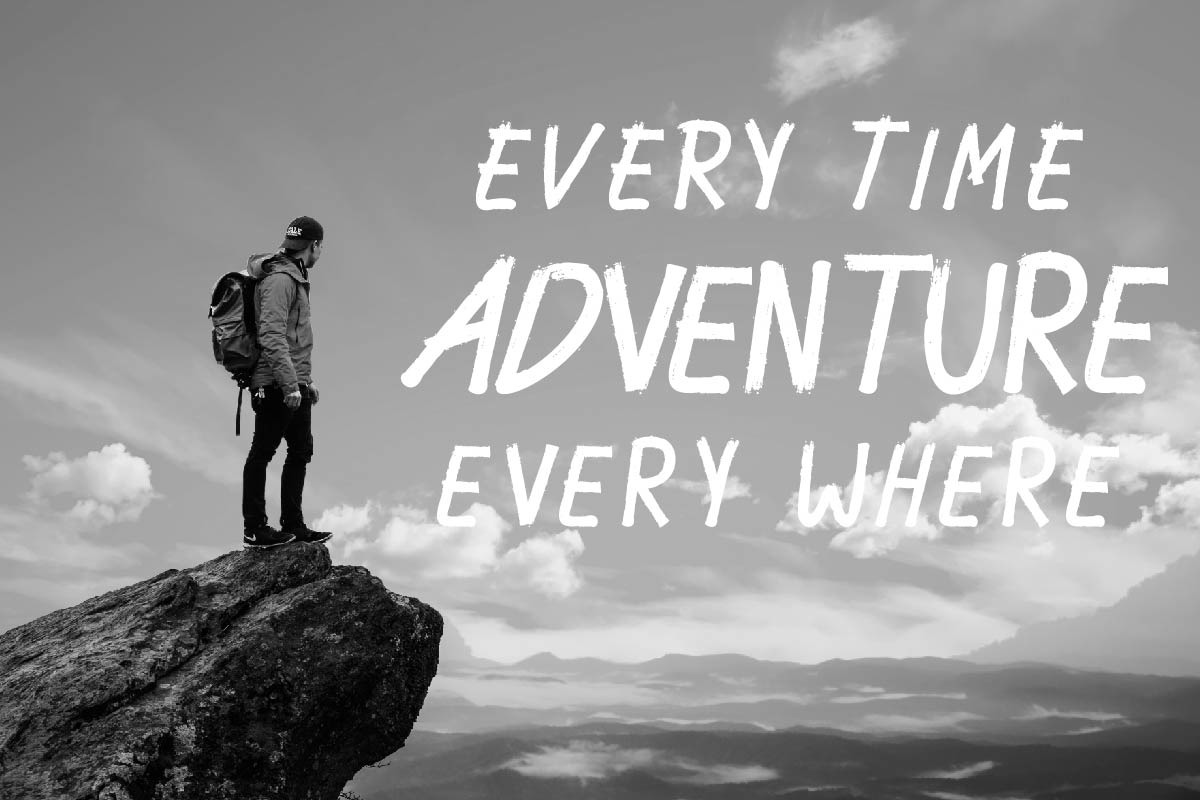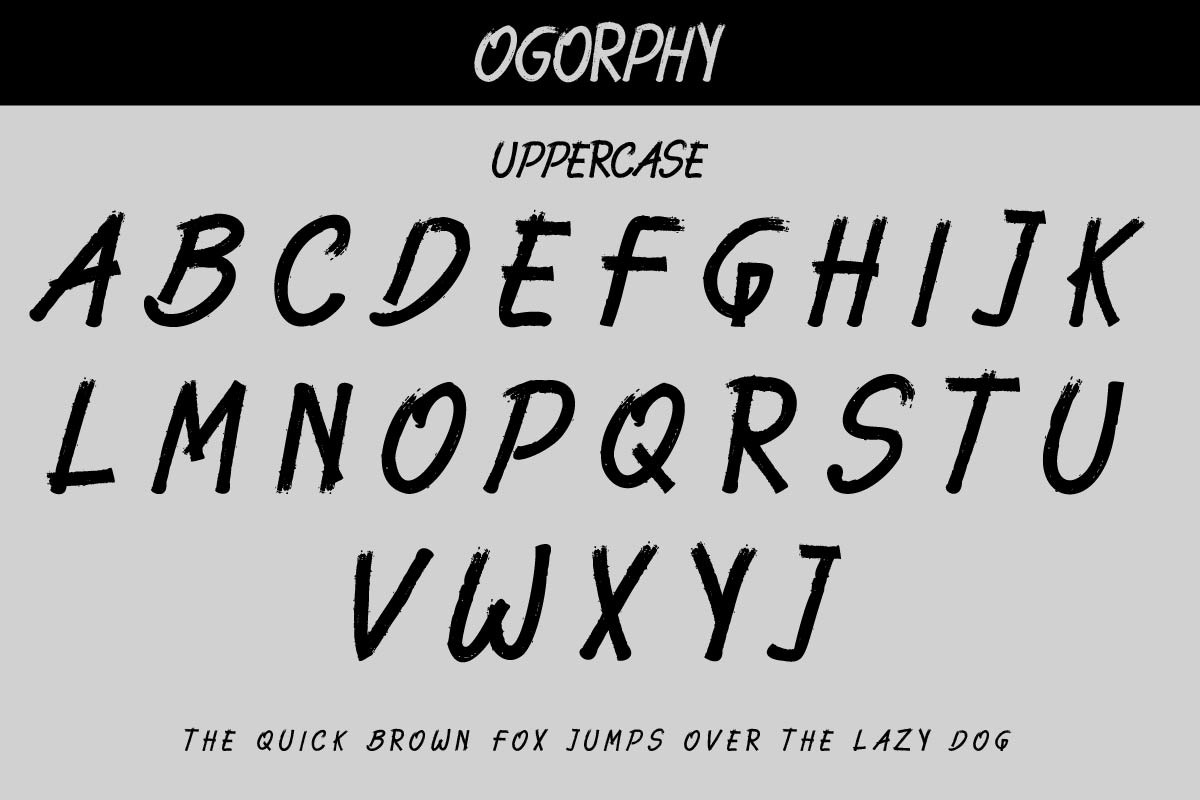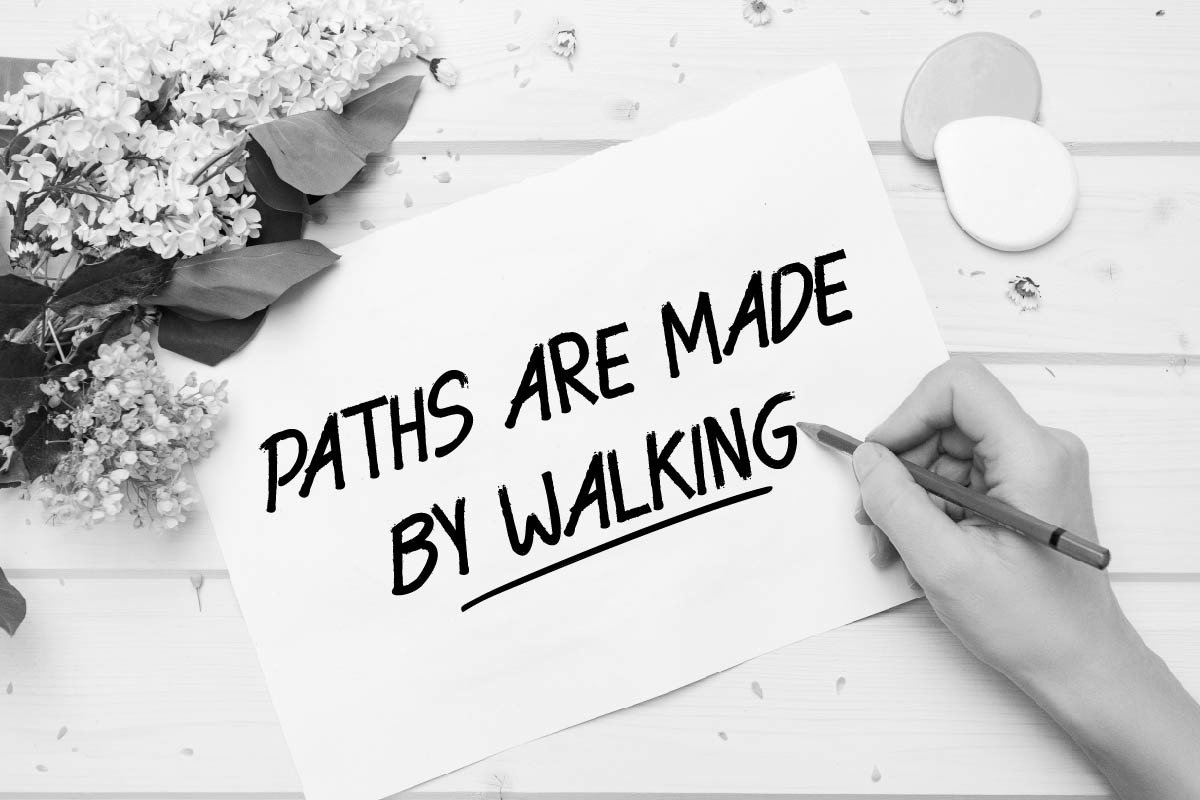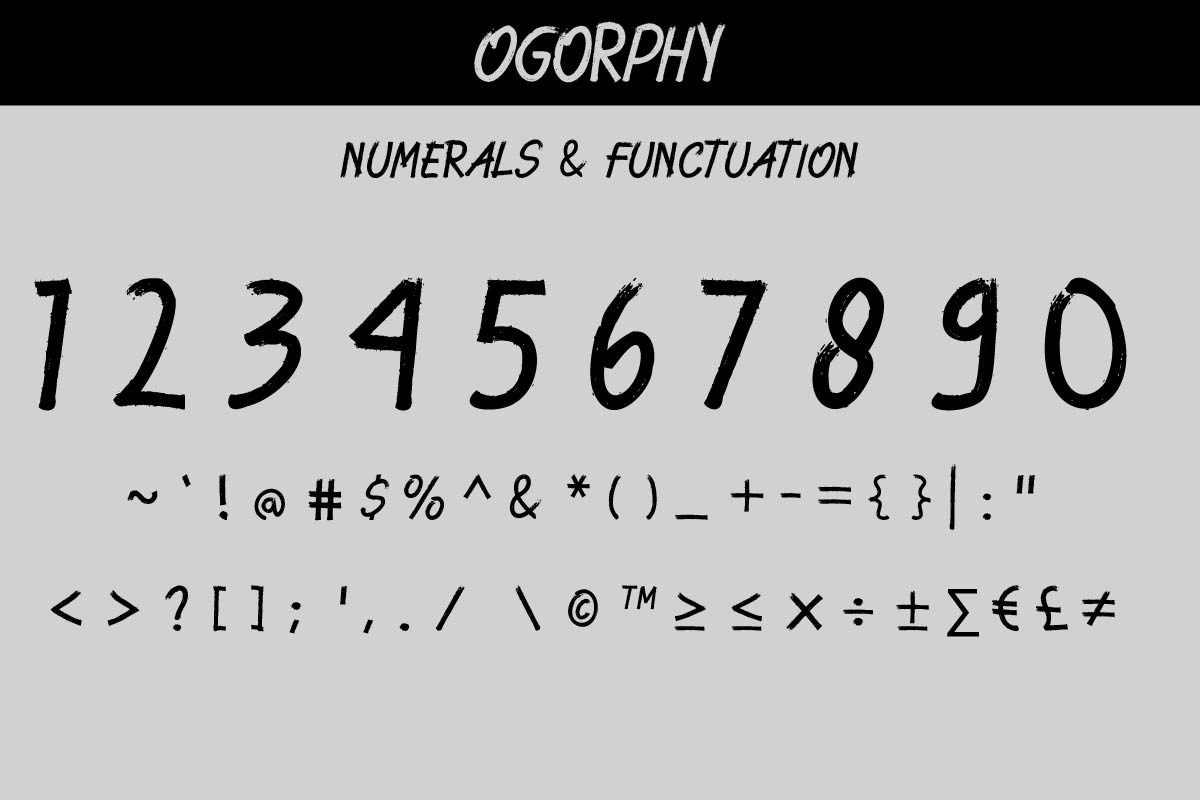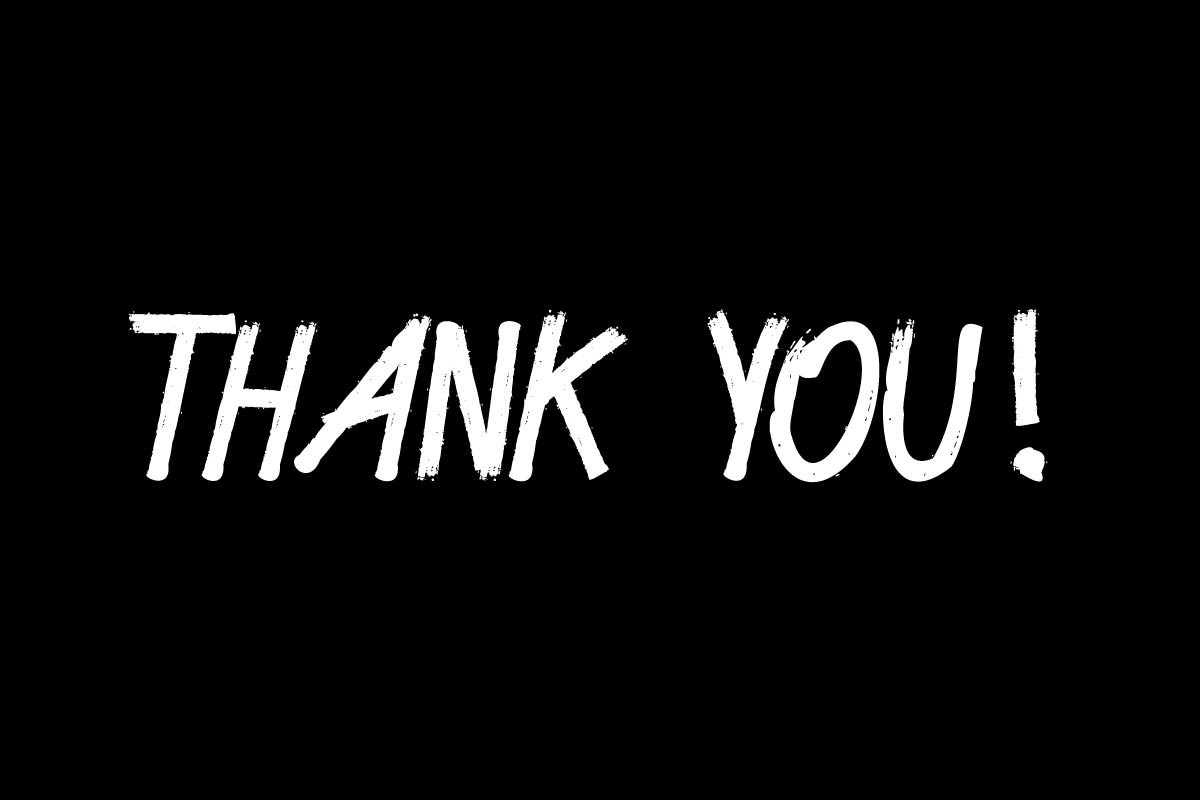
Ogorphy Brush Font
Please meet our newest font : Ogorphy Brush Font
Today EdricStudio present to you Ogorphy Brush Font This is a handmade font with brush style. Perfectly crafted from our studio in Bandung and Garut. Made by typeface designers : Yasri and Sarah
Ogorphy Brush Font has a unique glyphs so there’s no limit using with this font.